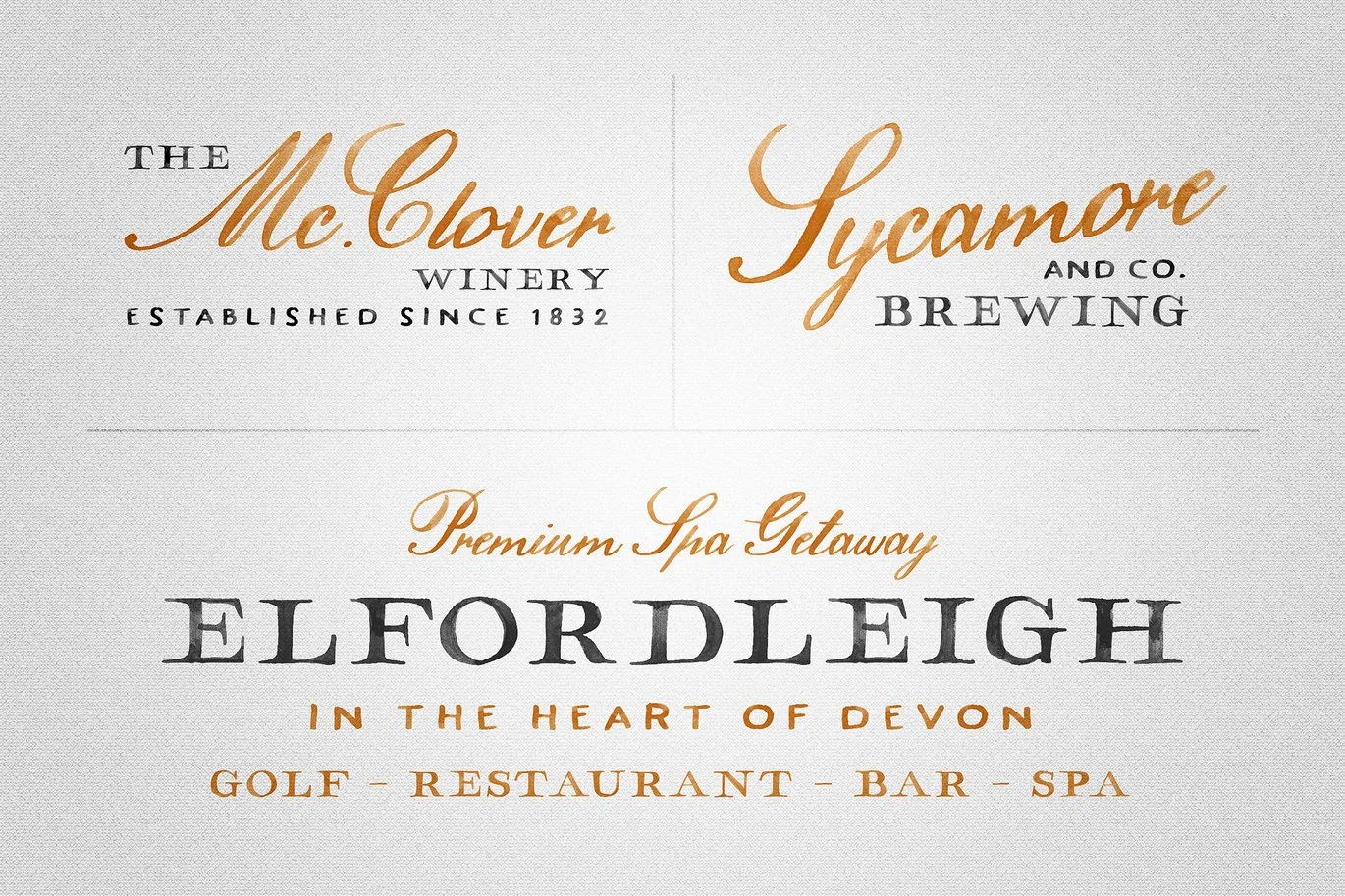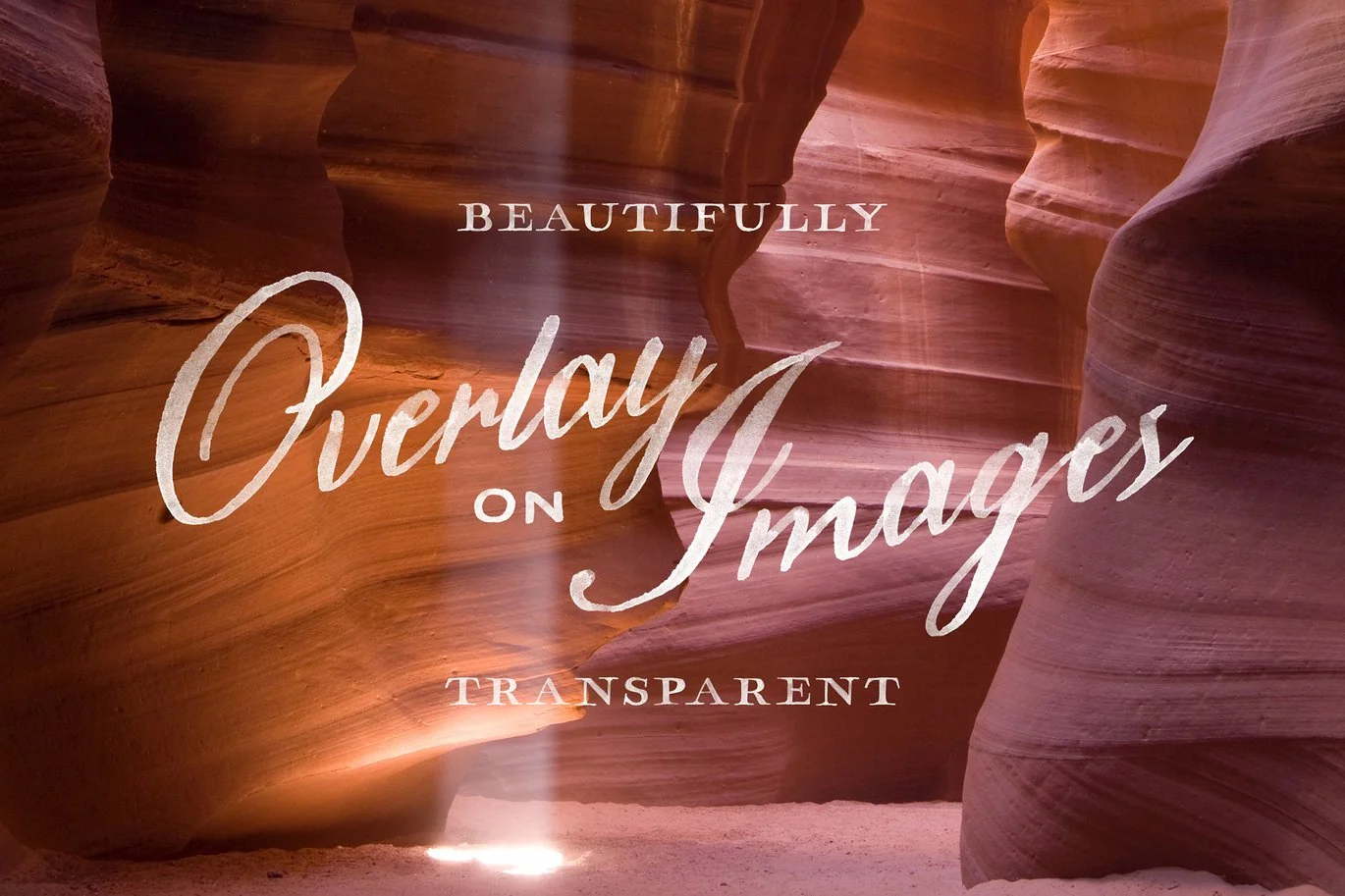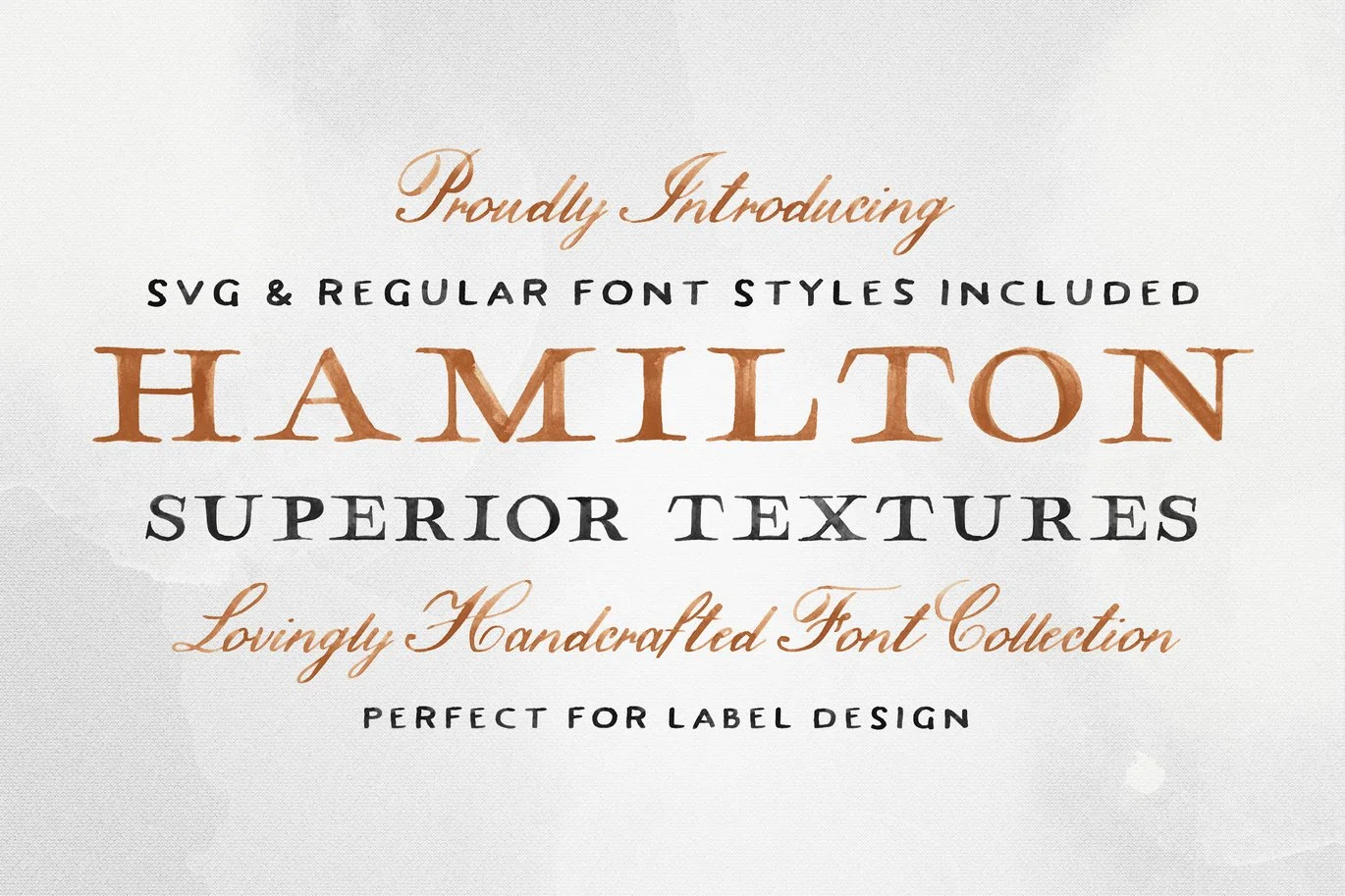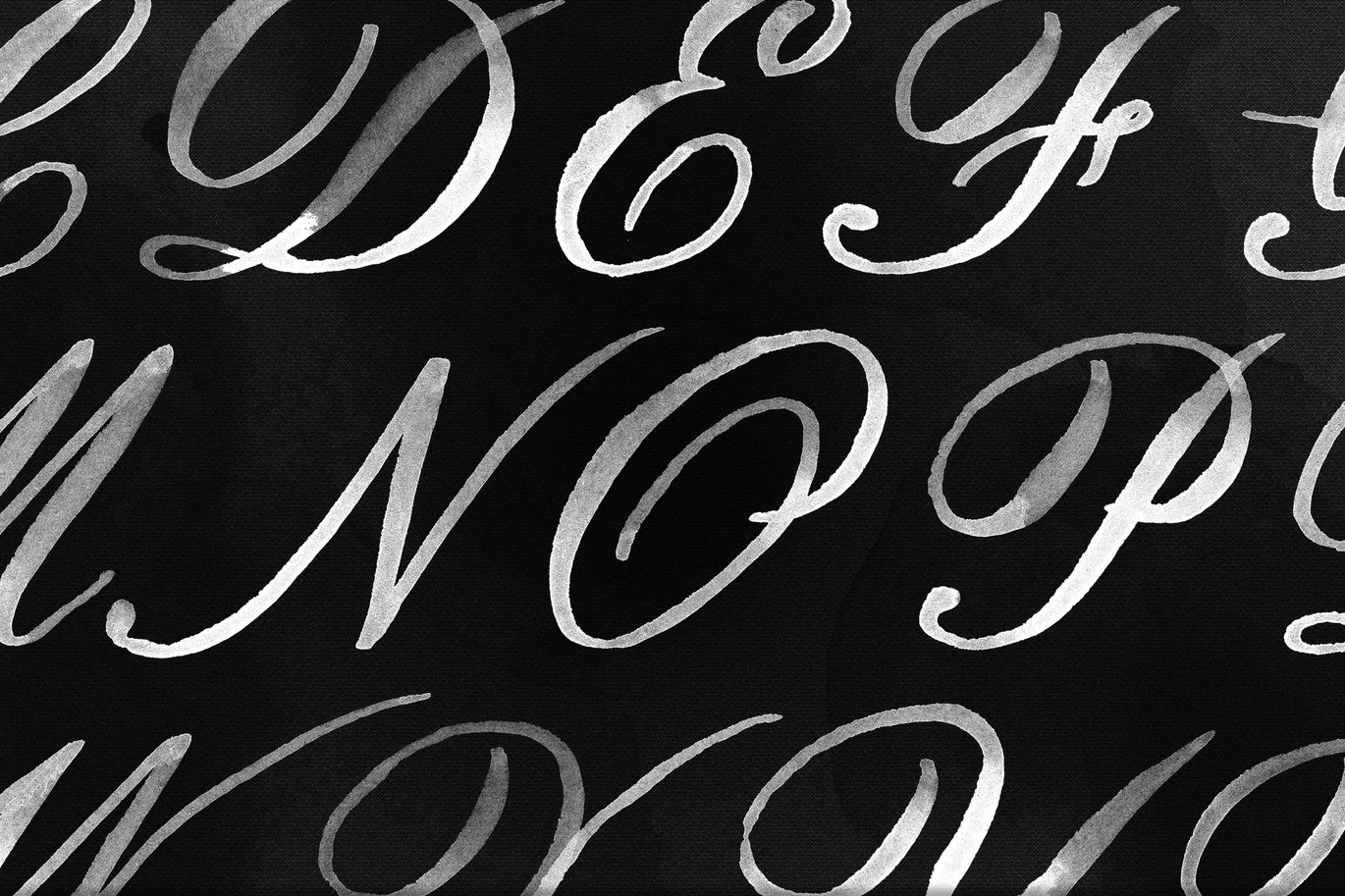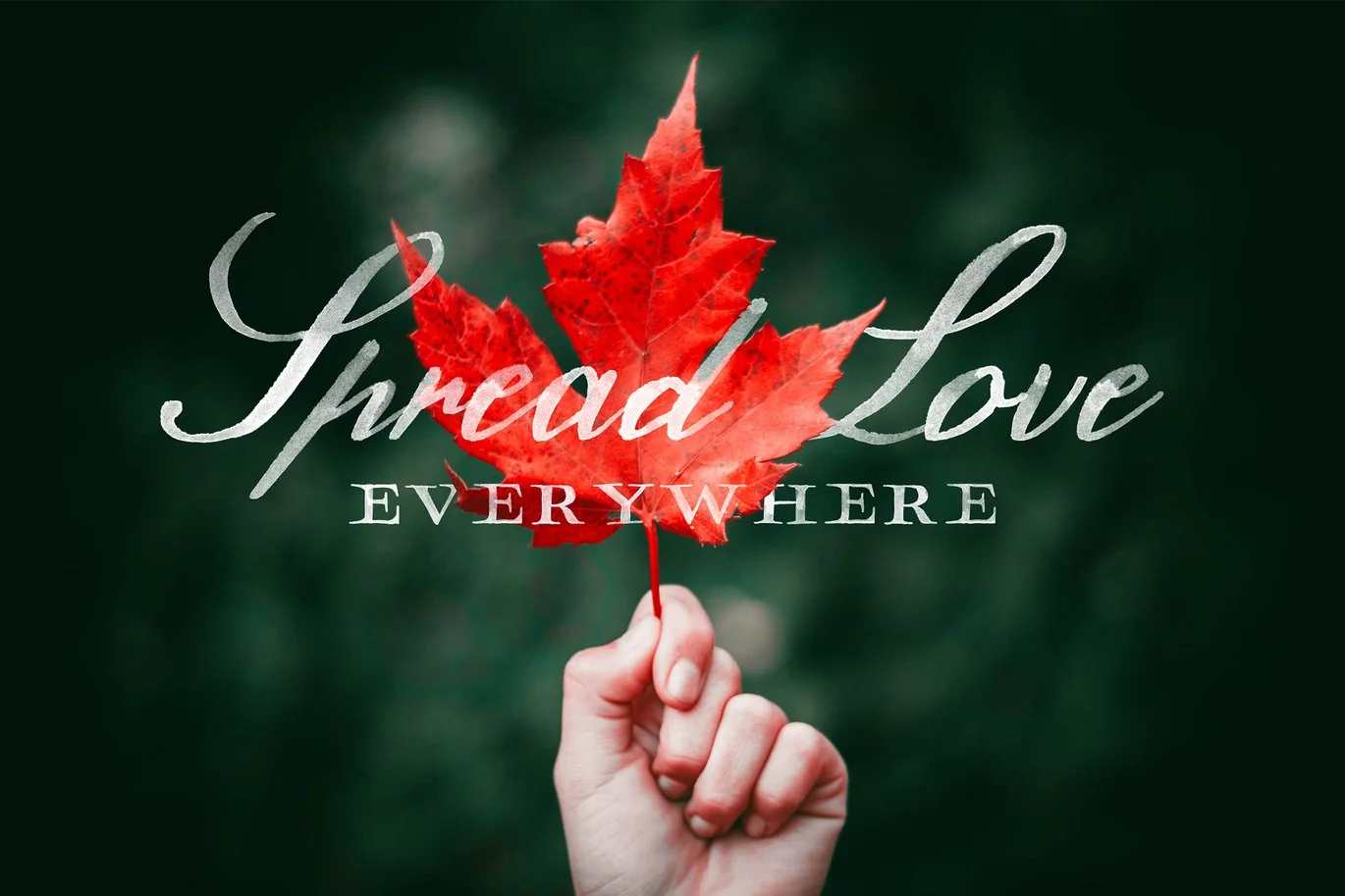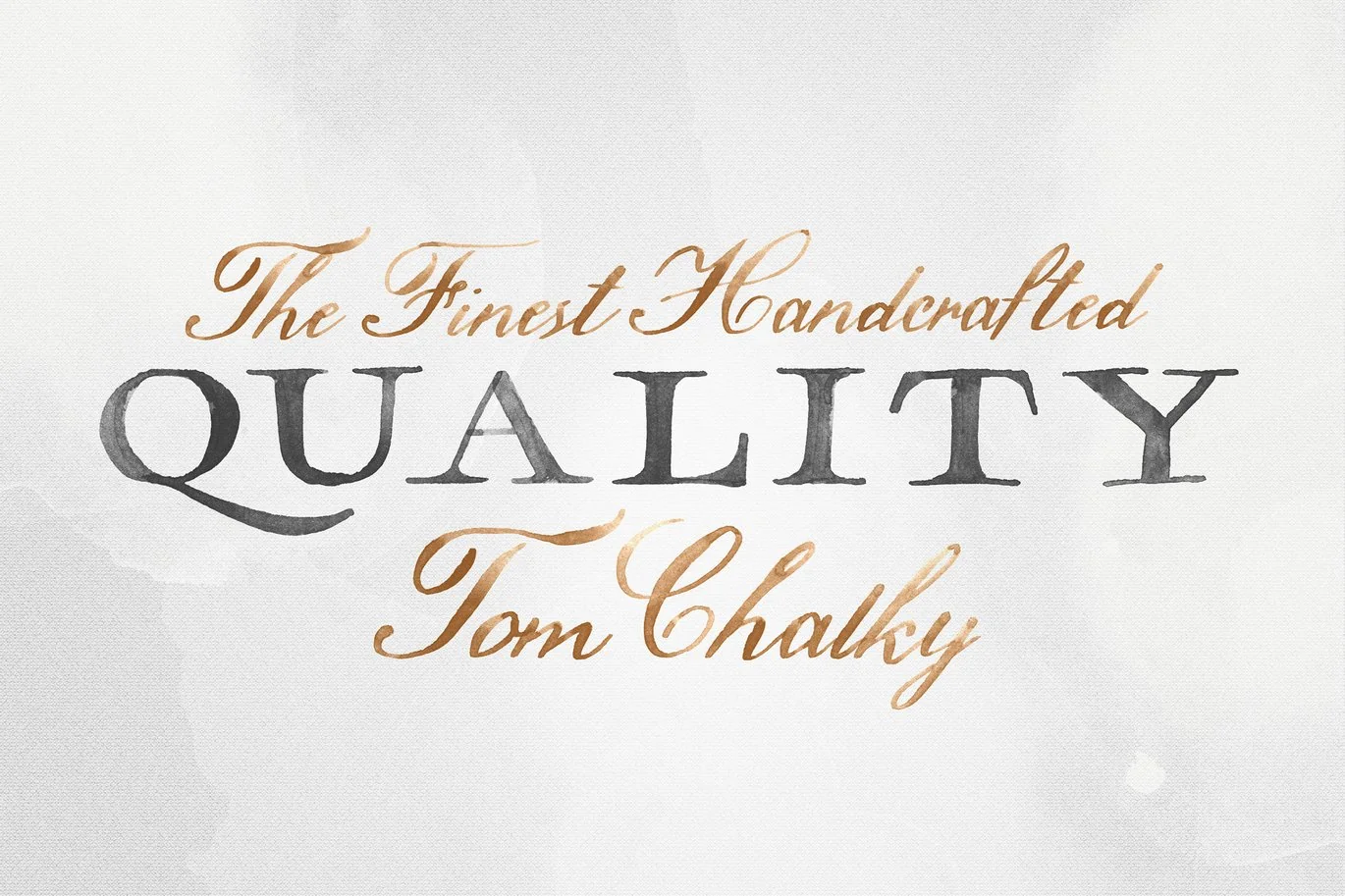
Hamilton SVG Font Collection
Introducing the Hamilton SVG Font Collection!
The Hamilton SVG Font Family features a serif, sans serif, and script; each boasting exquisite and hand painted textures throughout. Inspired by vintage maps, wine, and whisky labels, Hamilton was designed to be a classy cat perfect for packaging design, logos, invitations and so much more.
Hamilton Serif SVG – A strong serif that looks great large or small featuring all capitals with alternate uppercase and lowercase glyphs to improve the overall handwritten aesthetic.
Hamilton Script SVG – Your classic script font that oozes sophistication and quality. Looks great on its own and perfectly compliments the serif.
Hamilton Sans SVG – A wonderful sans font, specifically designed to look great small. It doesn’t want the spotlight, it sits comfortably alongside its counterparts. Another all-caps font with alternate lowercase and uppercase glyphs.
Hamilton Painted Series – These 3 fonts are copies of the fonts above. However, these do not feature the SVG textures and require no specific software to function.